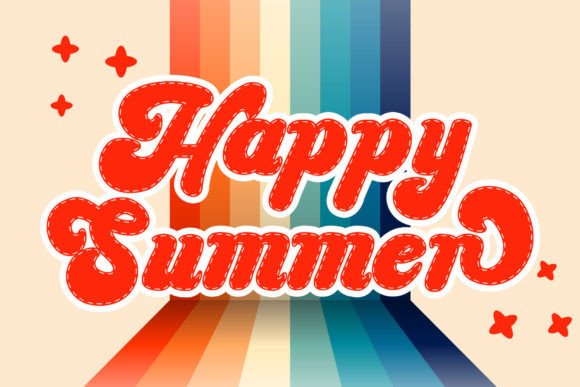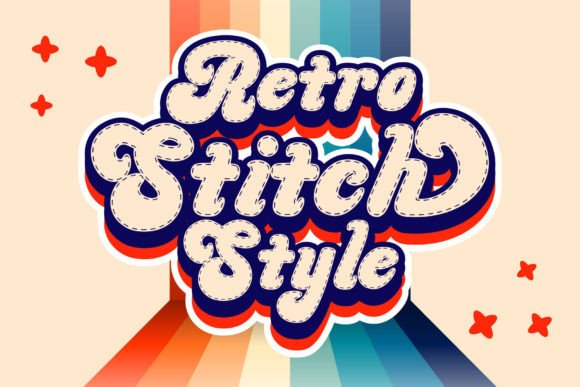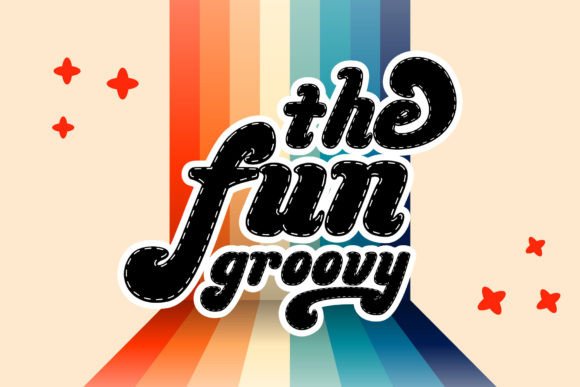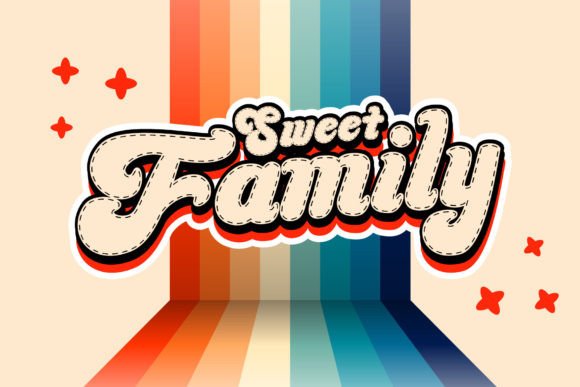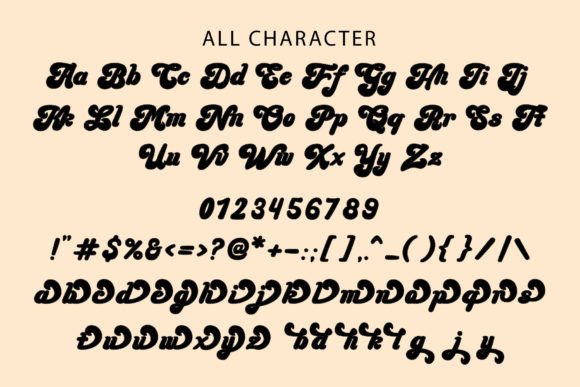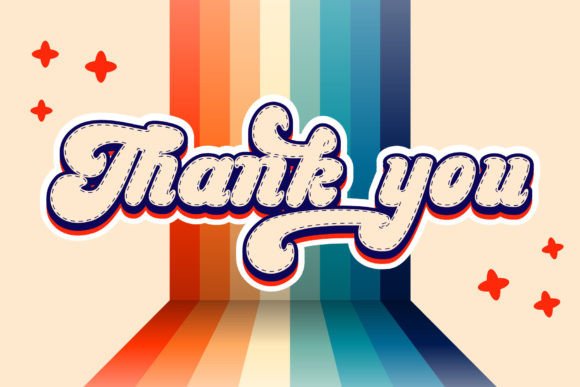
Introduction to Retro Stitch Font Font
Fonts play a crucial role in design, and the Retro Stitch Font font is a typeface that brings both character and versatility to any project. Whether you’re working on a branding project, a website, or a print design, the Retro Stitch Font font offers a unique style that can elevate your work.
Retro Stitch is a cool, vintage-style display font.
Use it to add that special retro touch to any design idea It can be used for logos, branding, invitations, stationery, wedding designs, social media posts, and much more.
Key Features of Retro Stitch Font Font
Why Choose Retro Stitch Font Font?
The Retro Stitch Font font is more than just a typeface – it’s a design tool that helps you communicate your message with style and clarity. Its unique character set and versatile design make it suitable for a wide range of applications, from elegant invitations to bold headlines.
With its carefully crafted letterforms and balanced proportions, the Retro Stitch Font font ensures readability and visual appeal across all mediums.
What makes Retro Stitch Font font special?
The Retro Stitch Font font stands out with its unique design, exceptional readability, and versatility across various design applications.